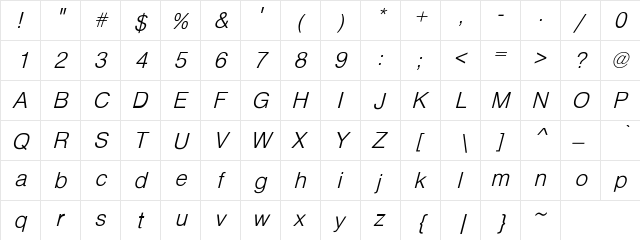
Bern Oblique Lite Regular
Design Context for Bern Oblique Lite Typeface
Bern Oblique Lite is a composed and adaptable typeface that performs quietly and consistently across a wide range of design contexts. Its italic angle brings a sense of urgency and motion to the letterforms.
Pro Tip: Use Bern Oblique Lite for emphasis, pull quotes, and subheadings where its slanted energy can add rhythm to the layout.